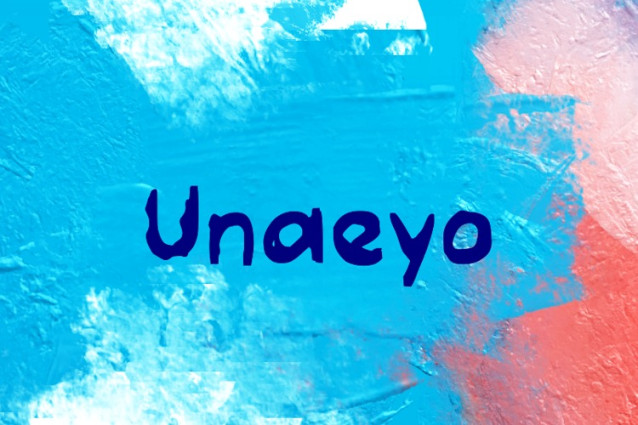
Unaeyo Font
Unaeyo Font, is a chunky, comic, and cartoon display font. With its neat and joyful personality, this font will enhance any project you wish to create!